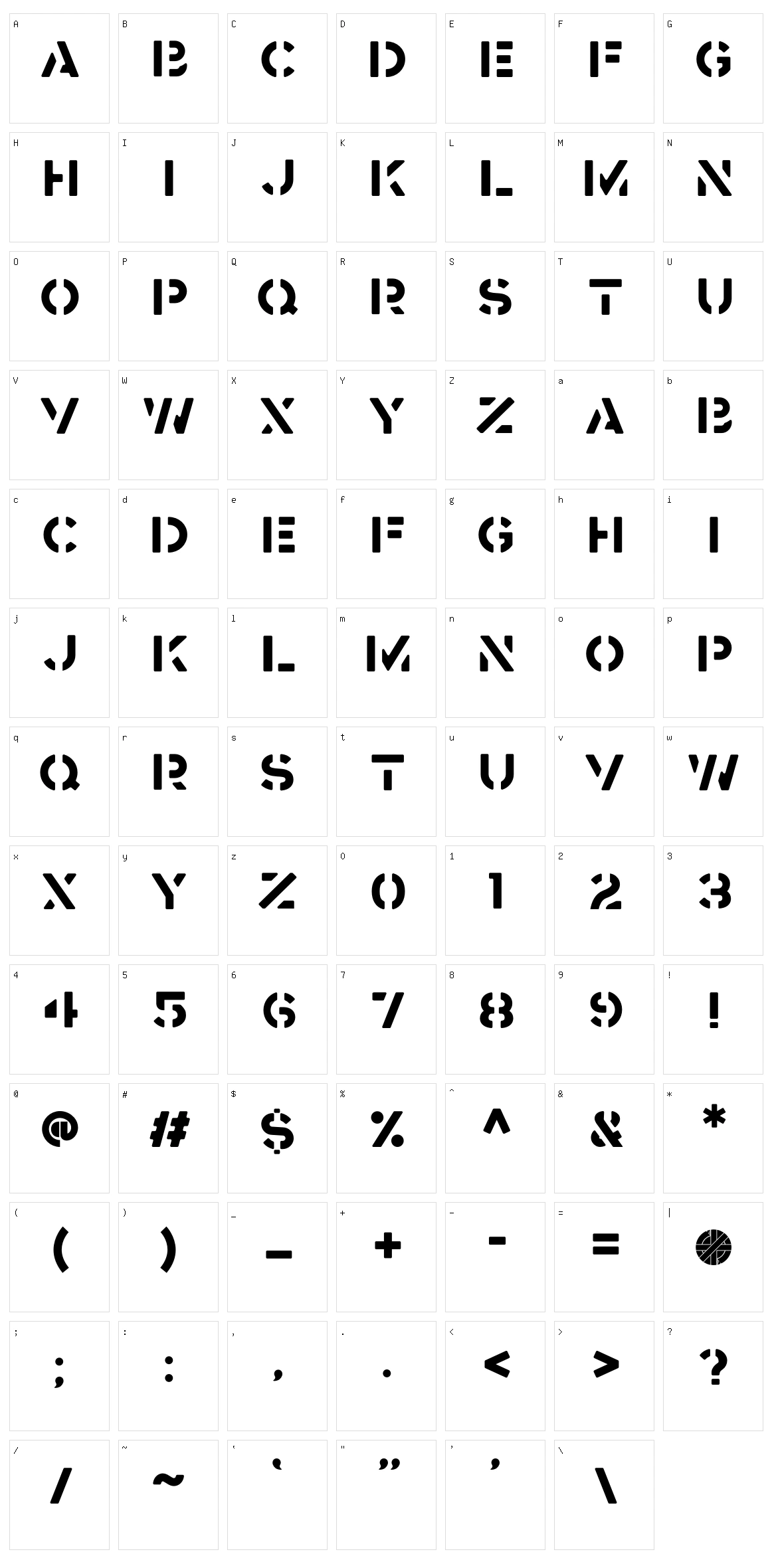
The free font FW Punk Is Dead is carefully designed by Christy Castro, showcasing a thoughtful balance of creativity and usability and falls under the Stencil font style. When you download the ZIP file, it contains only 51.6 KB of font files, making it lightweight and quick to download. Please review the license details below to understand permitted usage and distribution rights. If license information is not available, we recommend using this font for personal projects only or contacting the author directly for commercial usage permissions.